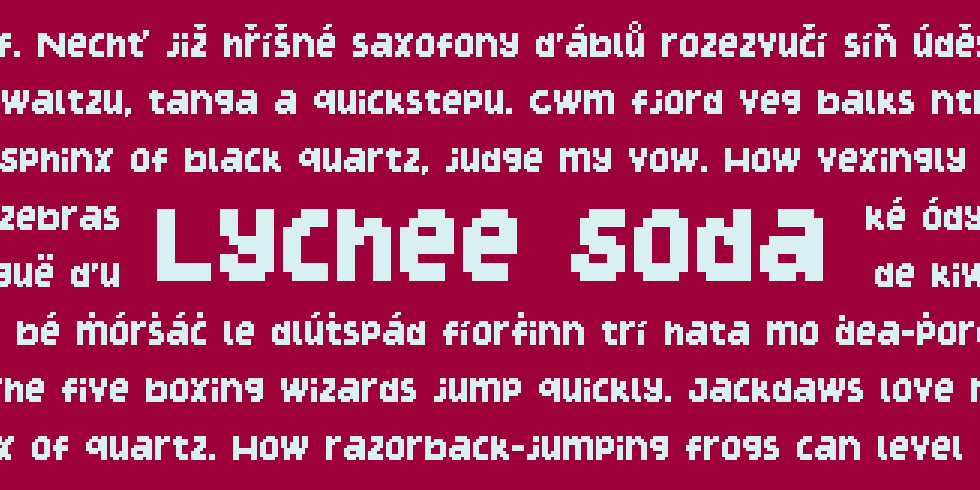
Coming clean here: when I started creating/releasing fonts this summer, I really was hoping to maintain a fairly steady release schedule. I managed it for a few months, but Inktober ended up eating up almost all of my free time in October and I completely failed to get much done font-wise. Oops!
Lychee Soda is a font that I actually started working on back in August, but I kept 1) getting more inspired by other font ideas, and 2) being dissatisfied with various letters every time I came back to work on it, resulting in me redoing letters over and over again. The design process may not have gone as smoothly as many of my other fonts, but I’m happy with the final result!
Like the rest of the Fruit Soda fonts (Kiwi Soda, Grape Soda, Pear Soda), Lychee Soda is a slightly chunky, slightly funky, bouncy & informal font. This time I went for a “no descenders + all letters are the same height” design. Now that it’s done I’m getting a bit of a Coolvetica vibe, even though it doesn’t really look like Coolvetica at all. (I admit, I’m a big fan of Coolvetica!)
This time, the font’s namesake is the lychee, which is alternatively spelled litchi (I’m sure you can tell which spelling I prefer). This is a tropical fruit with delicate, sweet-tasting flesh and a big ol’ pit that is unfortunately not super fun to accidentally gnaw on. Fresh lychee aren’t common to come by here in America, and there aren’t really any fruit like lychee I can compare them to. The closest things I can think of are rambutan and mangosteen, which I think even fewer westerners are familiar with! The range of fruits you can get in America is kinda disappointing, sometimes!
This is the fourth fruit soda font… can you believe it? I swear, I don’t really like soda.